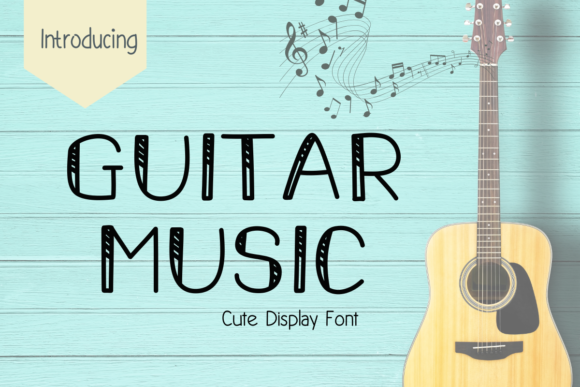
Unleash the Melody of Creativity with Guitar Music Font: The Perfect Font for Love, Joy, and a Touch of Whimsy
In a world of monotonous fonts, Guitar Music Font emerges as a captivating display font, striking a harmonious balance between elegance and playfulness. Crafted with meticulous attention to detail, each letter is adorned with a delicate border that resembles a shading line, infusing your designs with a captivating three-dimensional effect.
Escape the ordinary and immerse yourself in the whimsical world of Guitar Music Font. Let your imagination run wild as you create Valentine's Day cards that exude a heartfelt charm, wedding invitations that radiate elegance, and personalized stationary art that reflects your unique style. With Guitar Music Font, your designs will sing with personality.
Elevate your social media presence and captivate your audience with visually stunning content. Let Guitar Music Font dance across your posts, tweets, and stories, captivating attention and leaving a lasting impression. Your words will transform into melodies, resonating with your followers and making your brand the talk of the town.
Guitar Music Font is not just a font; it's an artistic expression that breathes life into your creations. Whether you're designing mugs, bags, or any other product, this font will add a touch of magic that sets your work apart. Let your designs sing with a harmonious blend of creativity and sophistication.